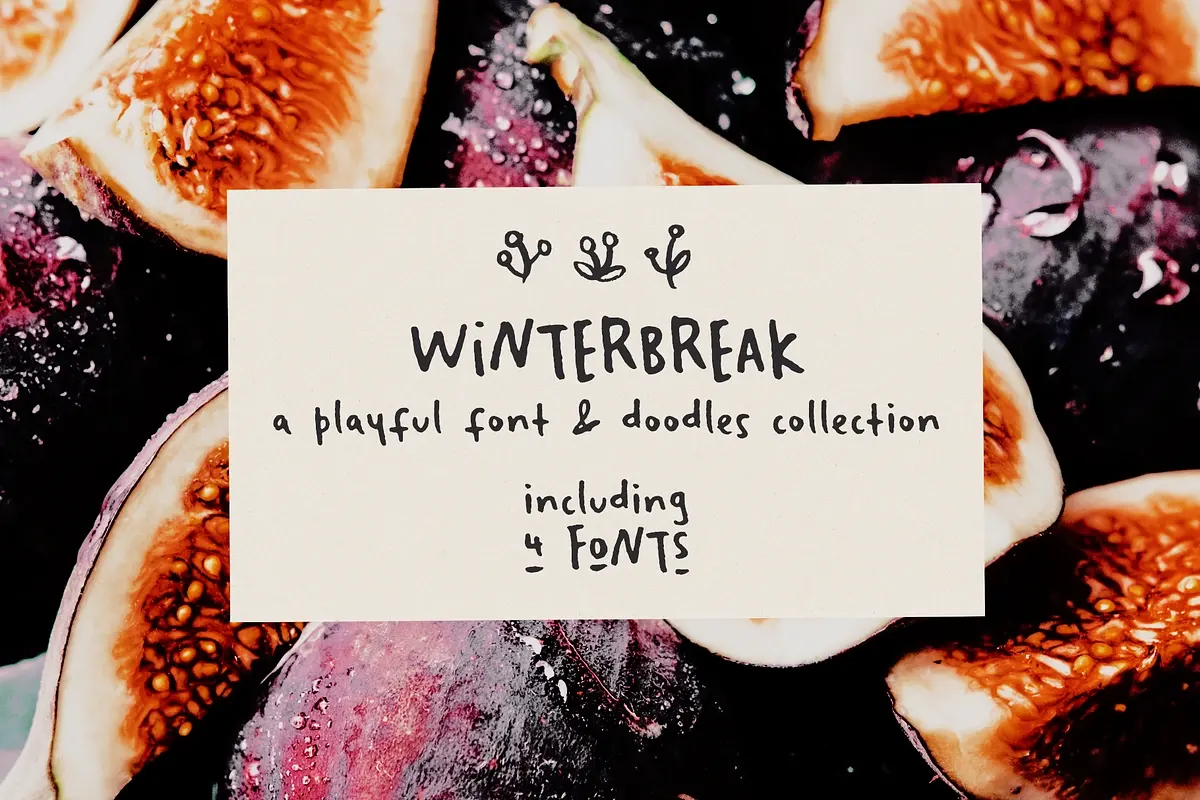
Winterbreak Font and Doodles Set Free Download is a festive, whimsical typeface paired with a collection of charming doodles perfect for the winter season. The font features playful, hand-lettered script with a cozy, handwritten style, making it perfect for holiday greetings, winter promotions, social media graphics, greeting cards, and invitations.
Along with the font, the doodles set includes various decorative elements like snowflakes, trees, gifts, and more—adding a fun and creative touch to any winter-themed project. Winterbreak Font and Doodles Set Free Download brings warmth, fun, and seasonal spirit to your designs, ideal for projects looking to capture the magic of the colder months.
Create festive and joyful designs with Winterbreak Font and Doodles Set Free Download, and bring the warmth and cheer of winter to your typography. Perfect for designers looking to add a personal, handmade touch to their holiday designs.